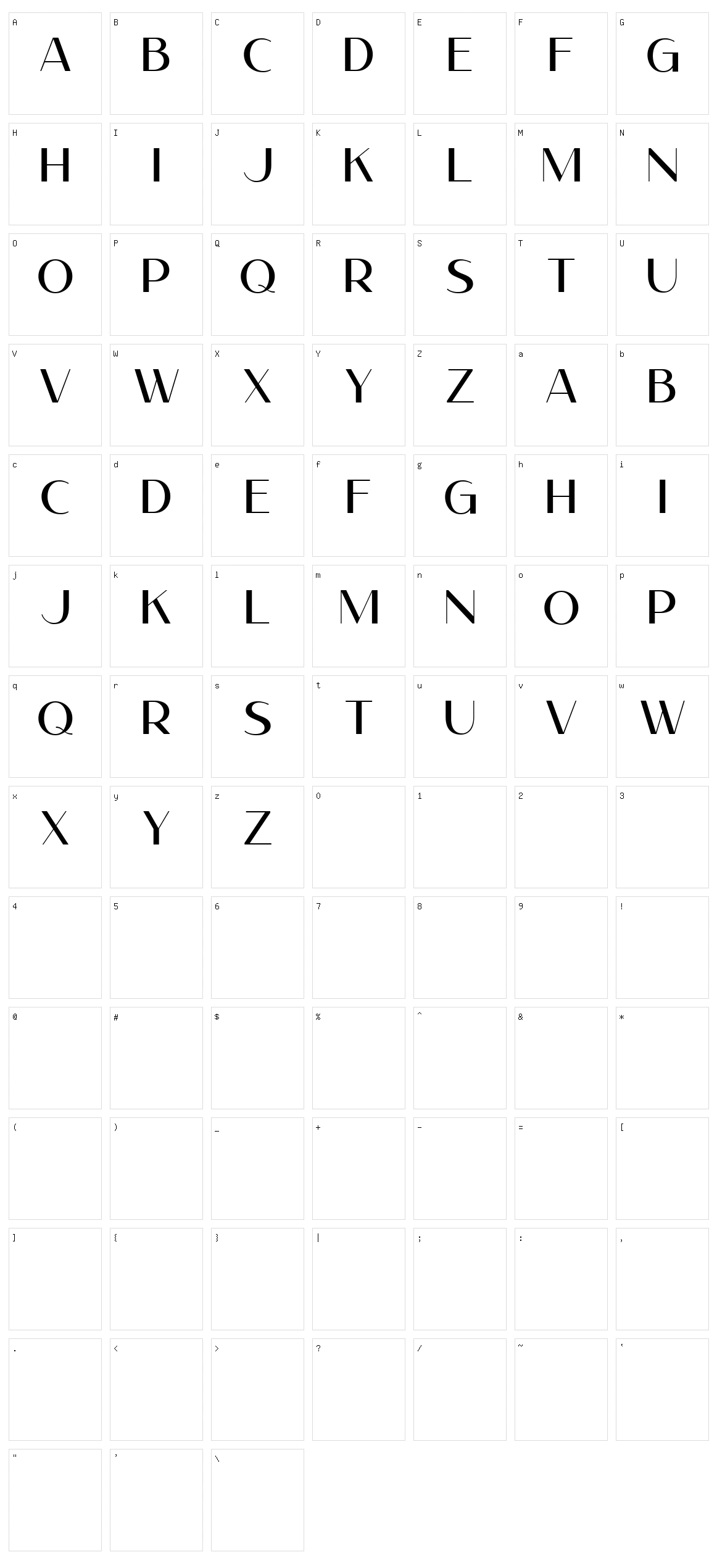
The free font Fluence is carefully designed by Pentagonistudio, showcasing a thoughtful balance of creativity and usability and falls under the Sans serif font style. When you download the ZIP file, it contains only 8.4 KB of font files, making it lightweight and quick to download. Please review the license details below to understand permitted usage and distribution rights. If license information is not available, we recommend using this font for personal projects only or contacting the author directly for commercial usage permissions.